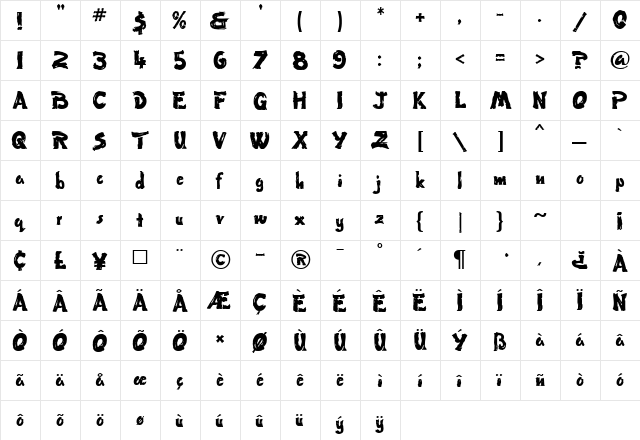
Tumbleweed MF Regular
Design Context for Tumbleweed MF Typeface
Tumbleweed MF is a composed and adaptable typeface that performs quietly and consistently across a wide range of design contexts.